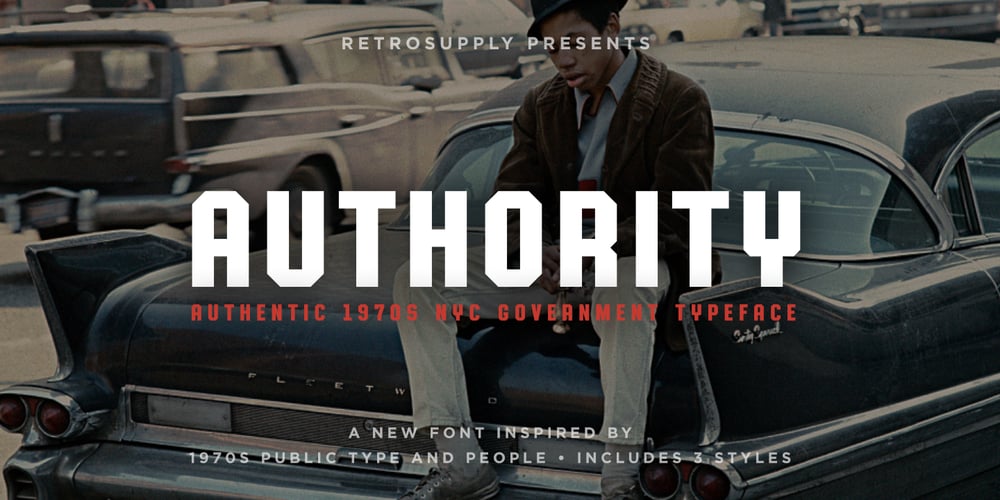
Authority Font Family was designed by Scott Fuller and published by RetroSupply Co.. Authority contains 8 styles and family package options. Inspired by public fonts in New York in the 1970s. Authority pays tribute to the almost unnoticed but powerful effect type have on our lives. From waiting on a cold morning to catch the 307 to Morton West High School, to the rain and snow worn stencil on a postal box. Public typography is a part of the little spaces in your lives where life actually happens. Government designed fonts were chosen to communicate authority and help grease the gears of the day-to-day grind. Authority beckons back to these days with it’s mildly condensed feel, squared corners and weight presence.